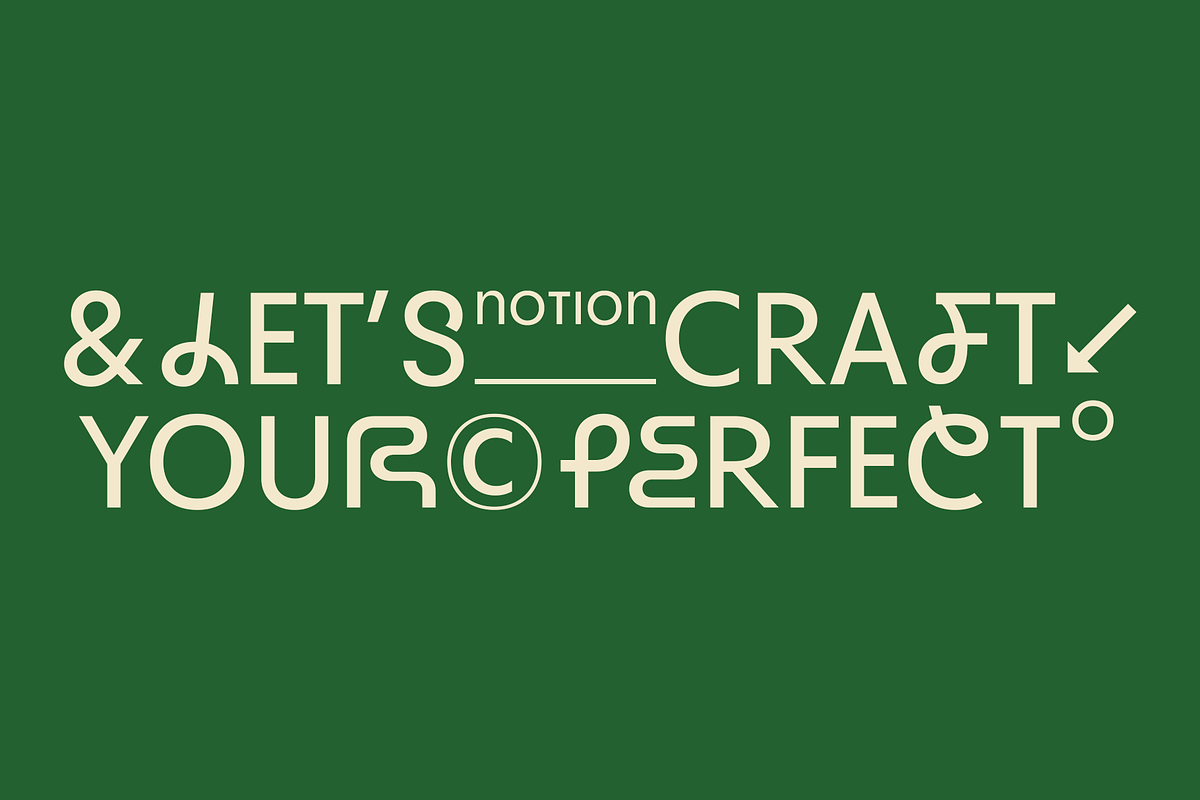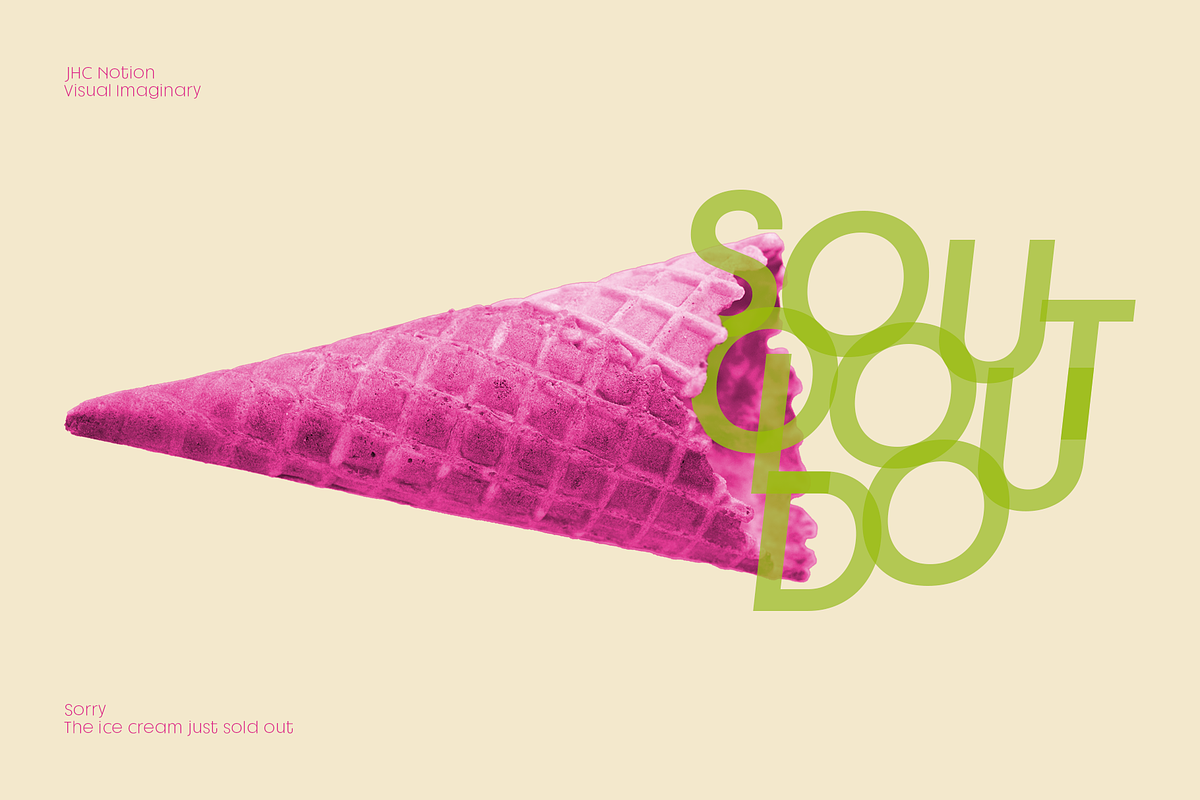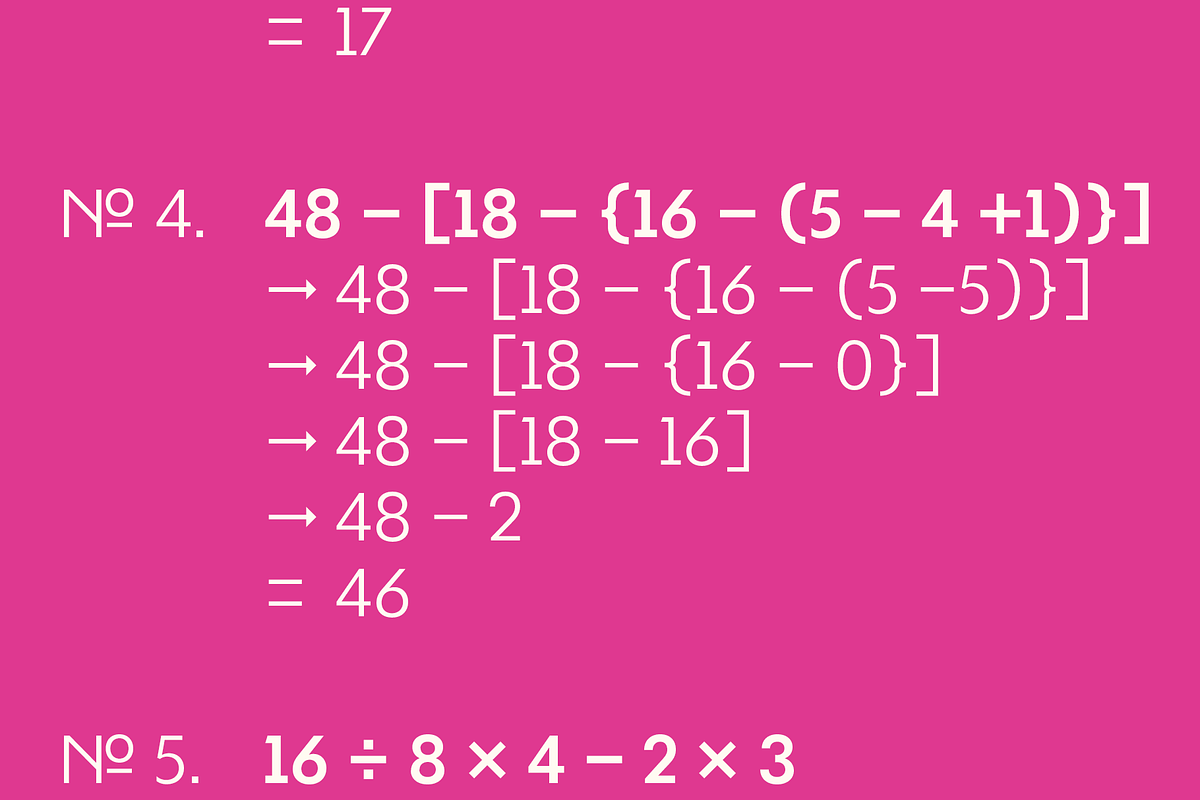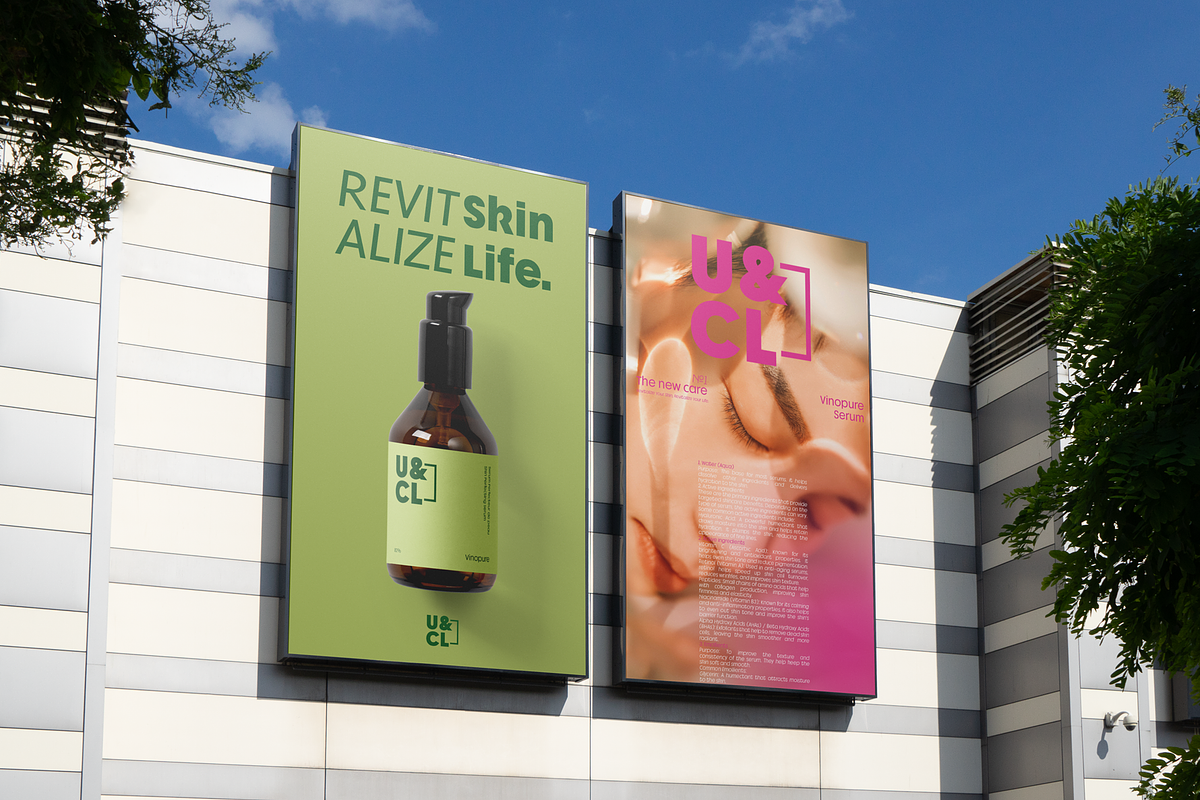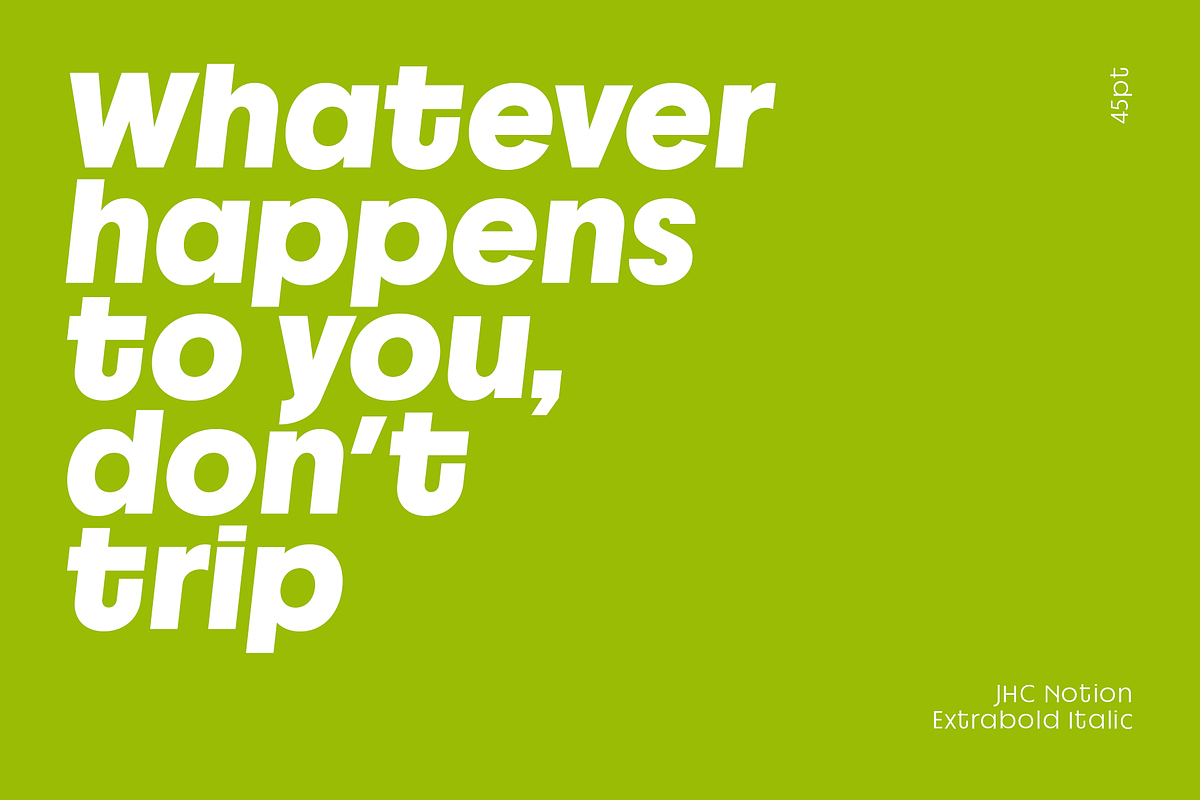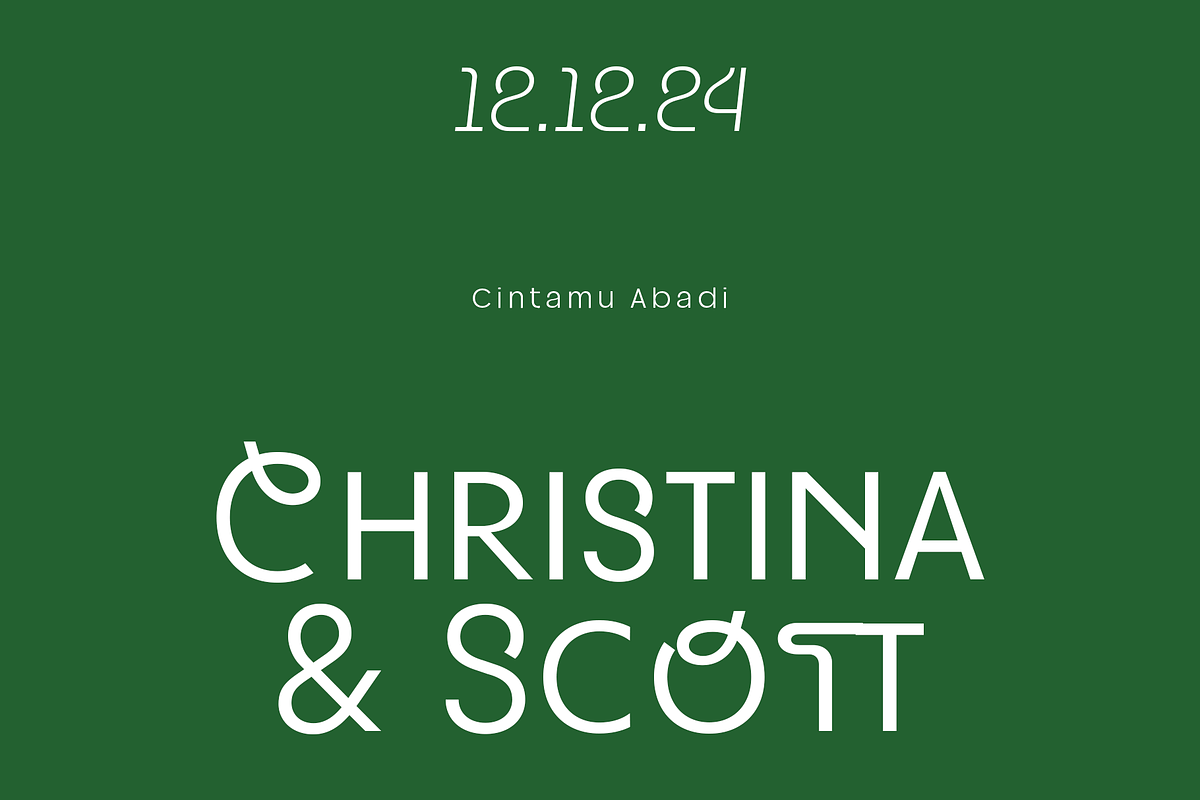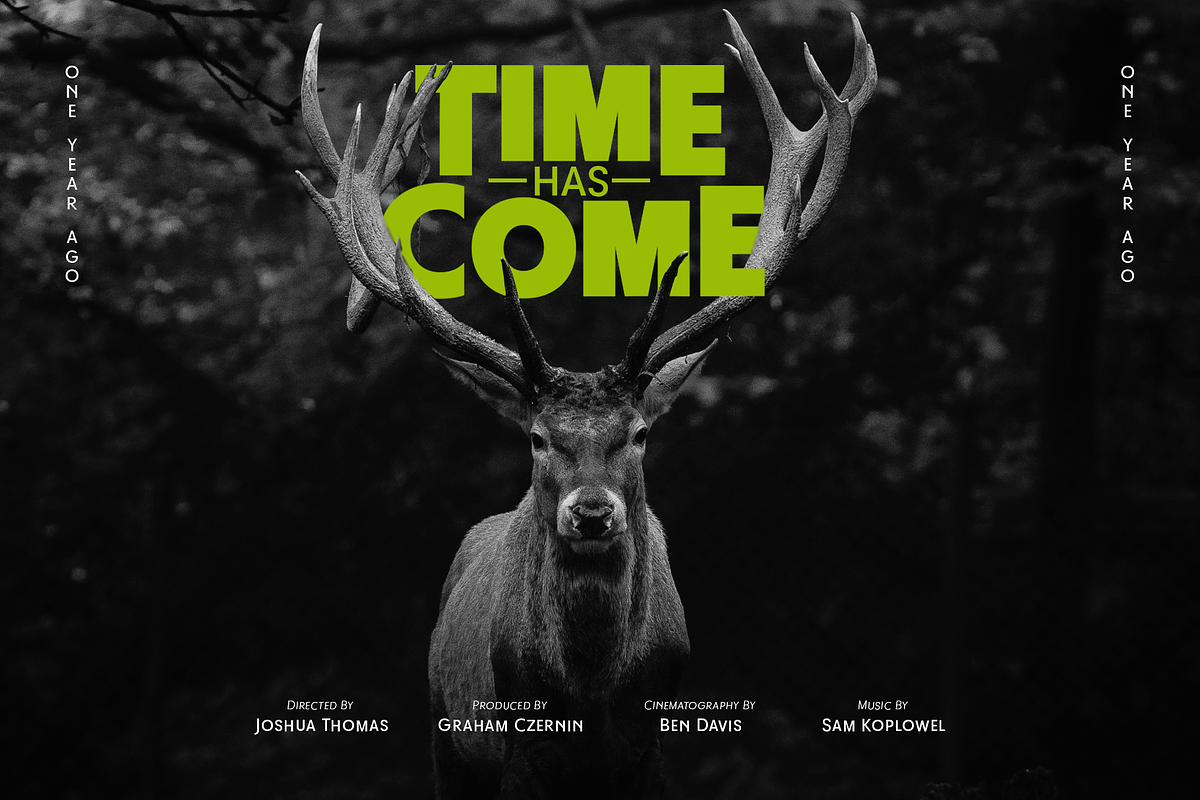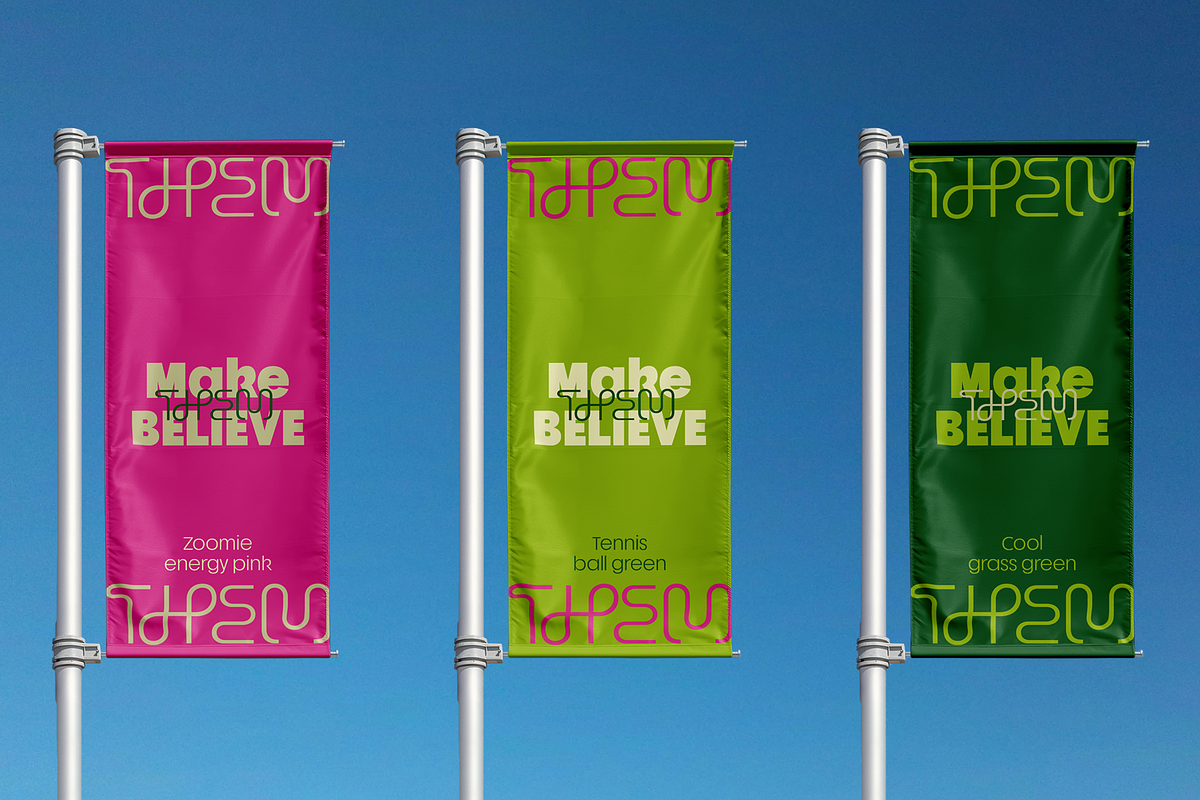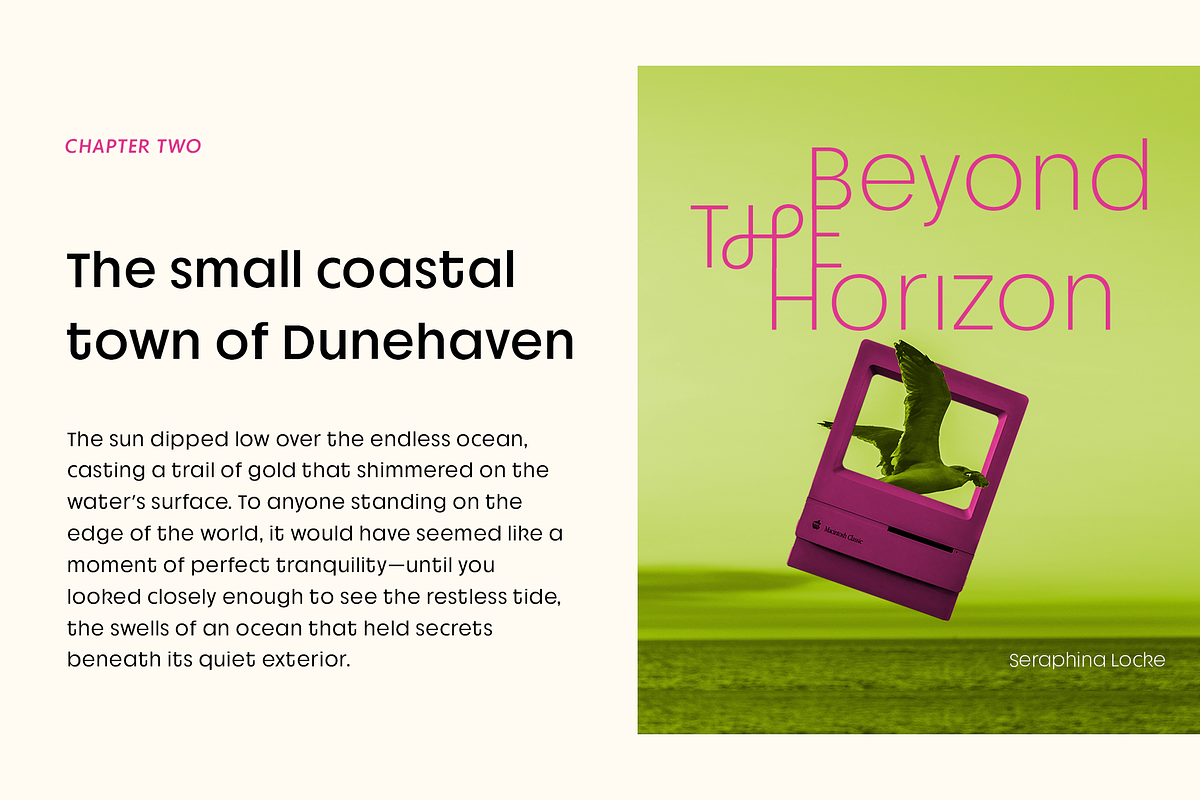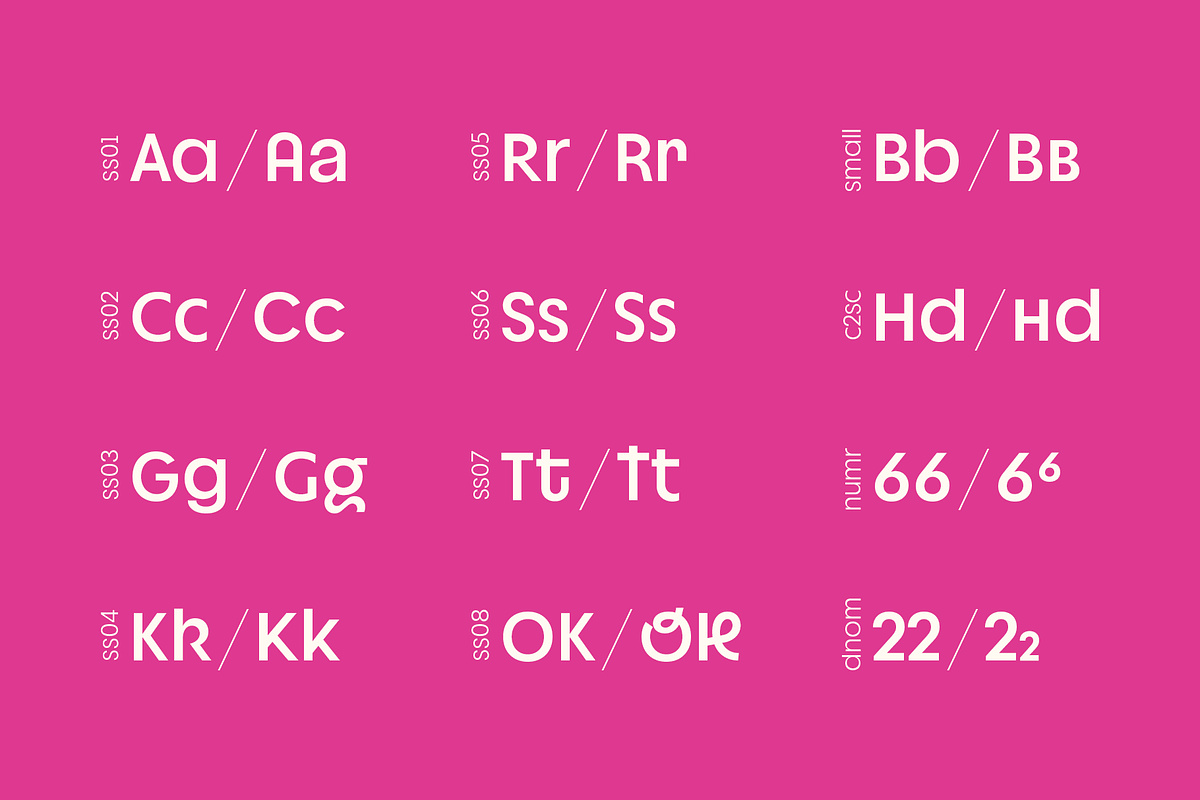
JHC Notion-Geometric Quirk Typeface
JHC Notion is a modern geometric sans-serif font that strikes a perfect balance between precision and personality. With its clean, sharp lines and minimalist structure, it exudes contemporary, making it versatile for a wide range of projects. The font’s standout feature is its subtle Quirk in the uppercase letters — a playful twist that adds character and depth without disrupting its crisp, professional look.
In addition, JHC Notion includes a true smallcaps feature, offering a consistent, uppercase-like appearance at smaller sizes. This makes it perfect for body text and complex layouts where uniformity is key. Whether for print or digital, JHC Notion combines clarity, style, and a touch of creative flair, making it the perfect choice for any project that requires sophistication with a hint of personality.